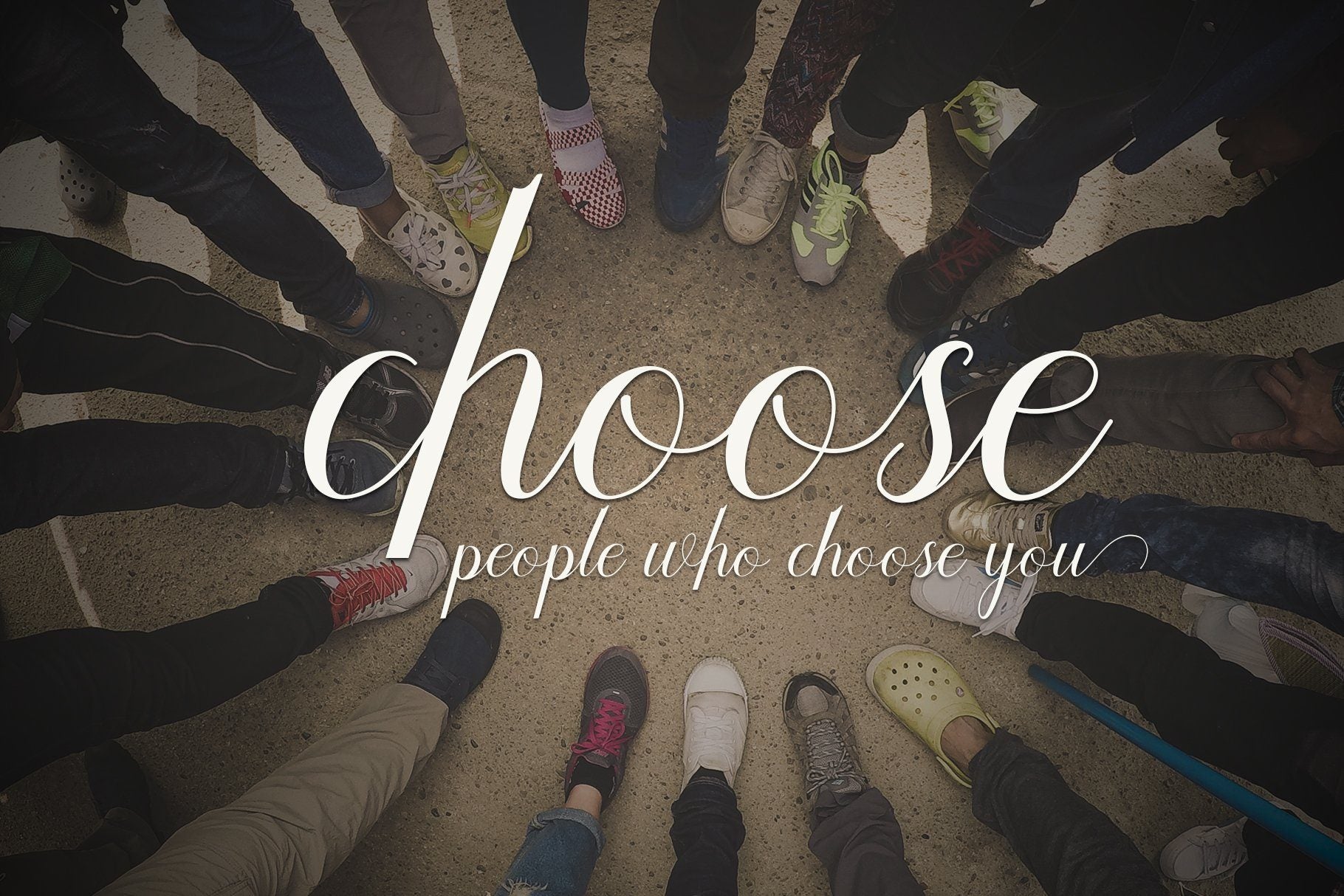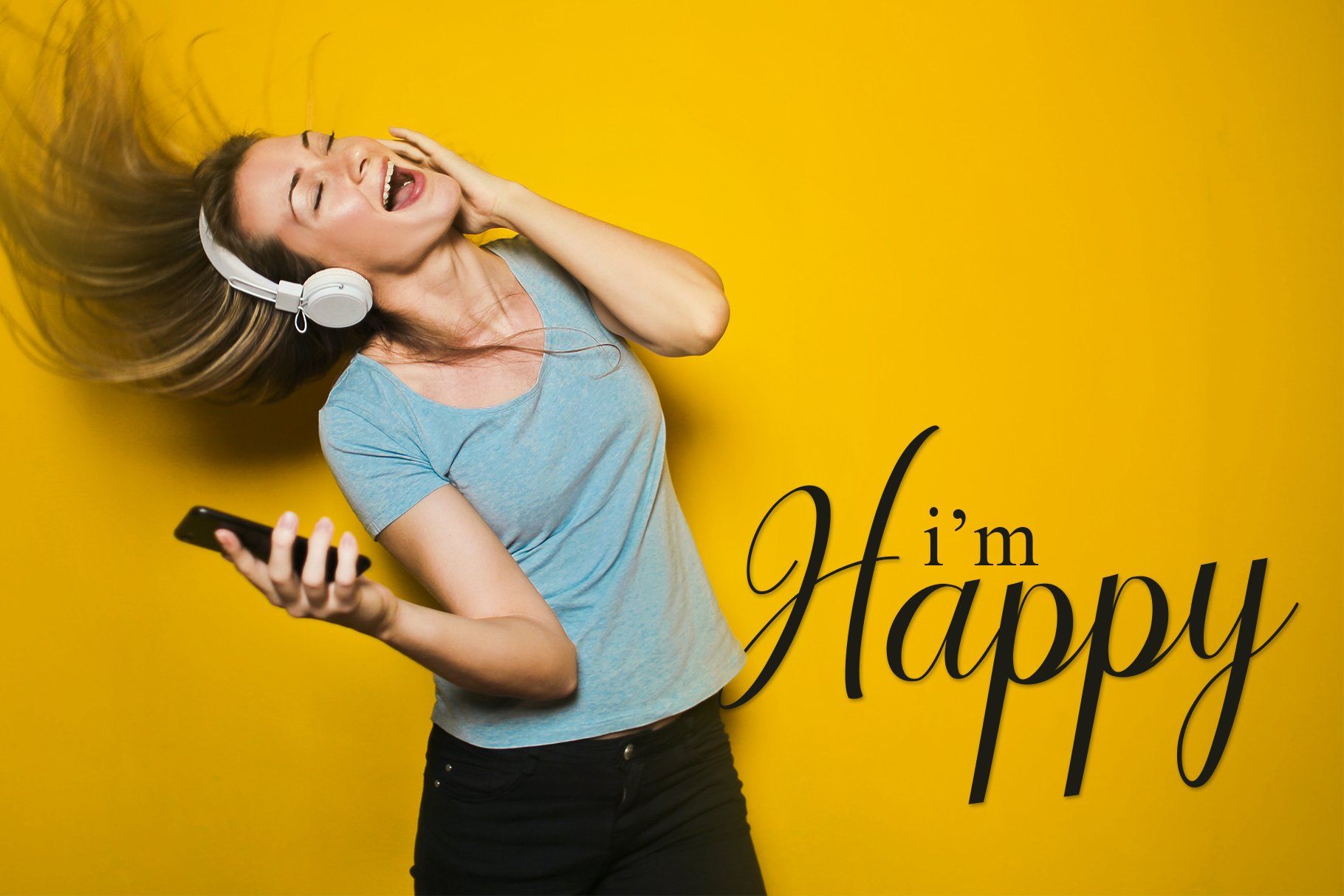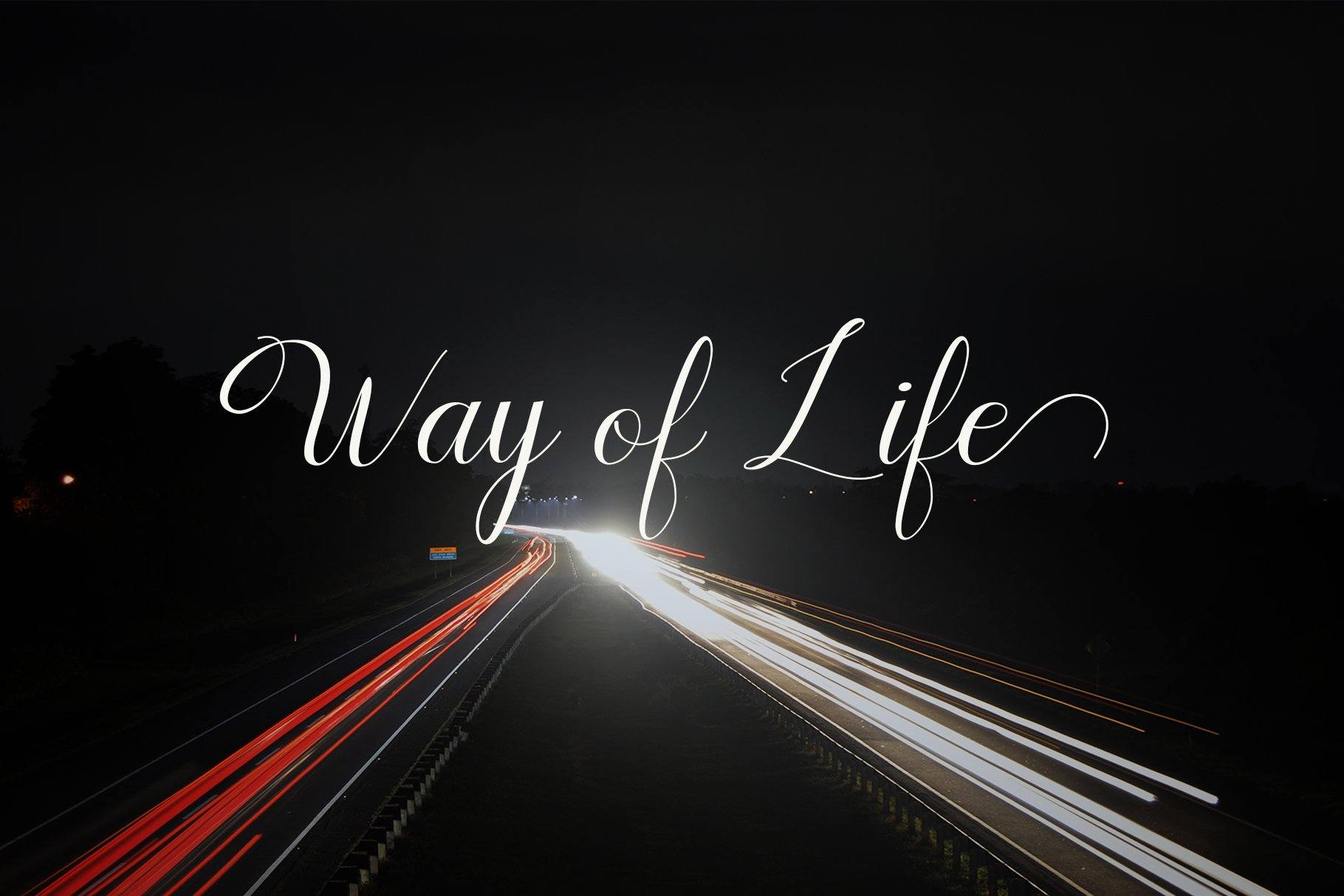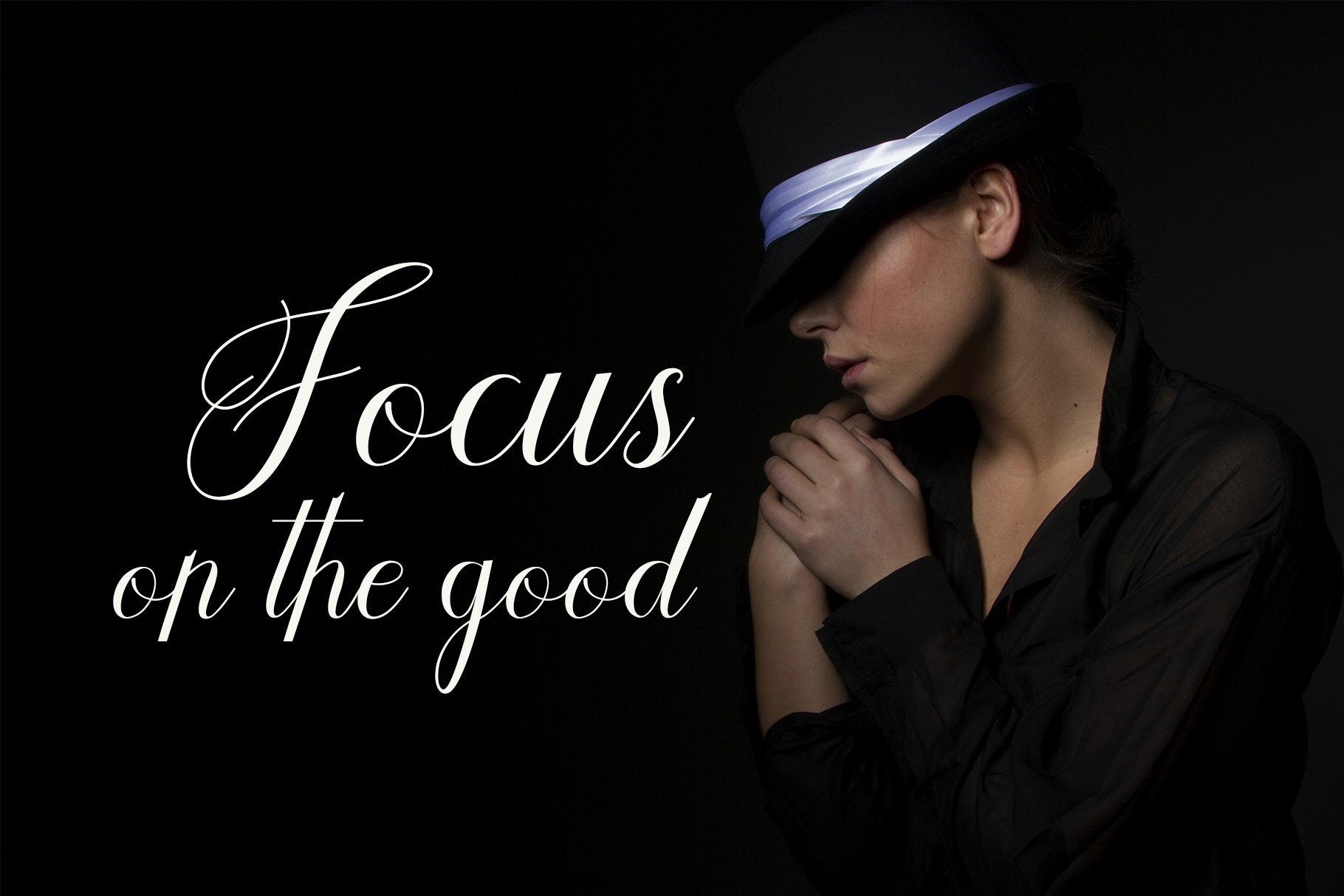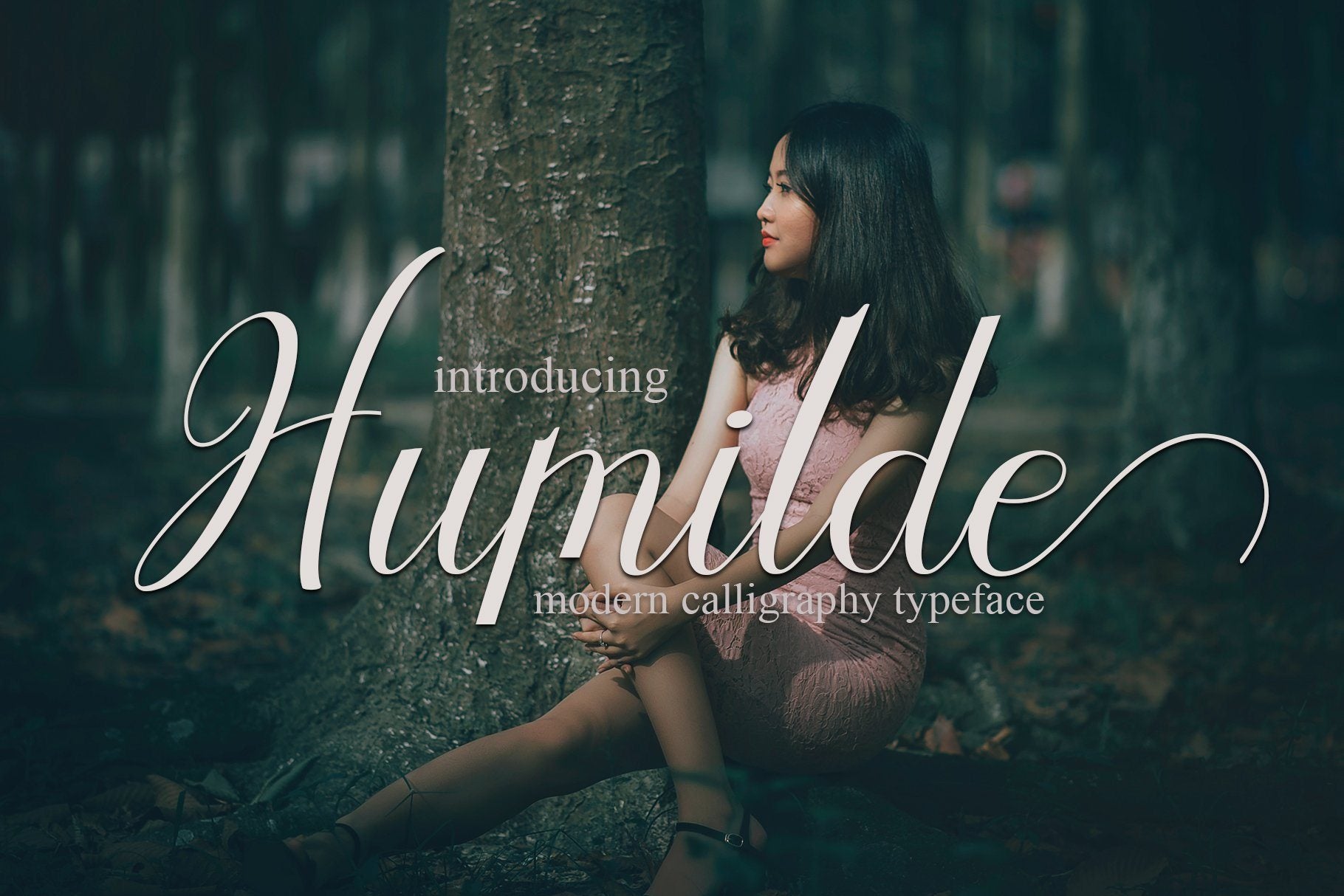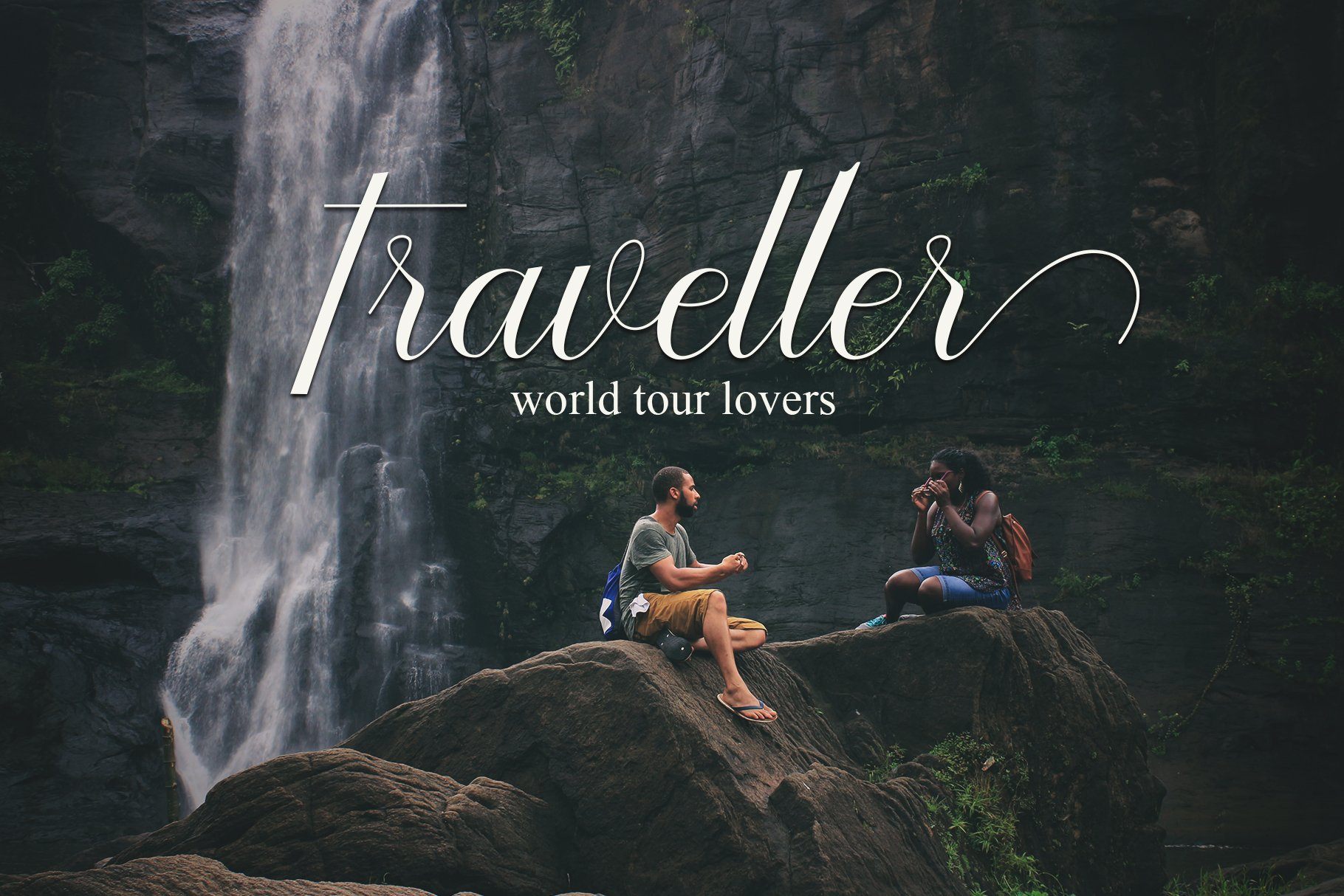
Humilde Script
About Humilde Script
Introducing Humilde Script a new fresh & modern script with a handmade calligraphy style, decorative characters So beautiful on invitation like greeting cards, branding materials, business cards, quotes, posters, and more!! The ZIP file are include the following : Humilde Script TTF Humilde Script OTF If you have any question, don’t hesitate to contact me by email  Thanks and happy designing :-)Thank You for purchase! Introducing Humilde Script a new fresh & modern script with a handmade calligraphy style, decorative characters So beautiful on invitation like greeting cards, branding materials, business cards, quotes, posters, and more!! The ZIP file are include the following : Humilde Script TTF Humilde Script OTF If you have any question, don’t hesitate to contact me by email  Thanks and happy designing :-)Thank You for purchase! Introducing Humilde Script a new fresh & modern script with a handmade calligraphy style, decorative characters So beautiful on invitation like greeting cards, branding materials, business cards, quotes, posters, and more!! The ZIP file are include the following : Humilde Script TTF Humilde Script OTF If you have any question, don’t hesitate to contact me by email  Thanks and happy designing :-)Thank You for purchase! Introducing Humilde Script a new fresh & modern script with a handmade calligraphy style, decorative characters So beautiful on invitation like greeting cards, branding materials, business cards, quotes, posters, and more!! The ZIP file are include the following : Humilde Script TTF Humilde Script OTF If you have any question, don’t hesitate to contact me by email  Thanks and happy designing :-)Thank You for purchase! Introducing Humilde Script a new fresh & modern script with a handmade calligraphy style, decorative characters So beautiful on invitation like greeting cards, branding materials, business cards, quotes, posters, and more!! The ZIP file are include the following : Humilde Script TTF Humilde Script OTF If you have any question, don’t hesitate to contact me by email  Thanks and happy designing :-)Thank You for purchase!